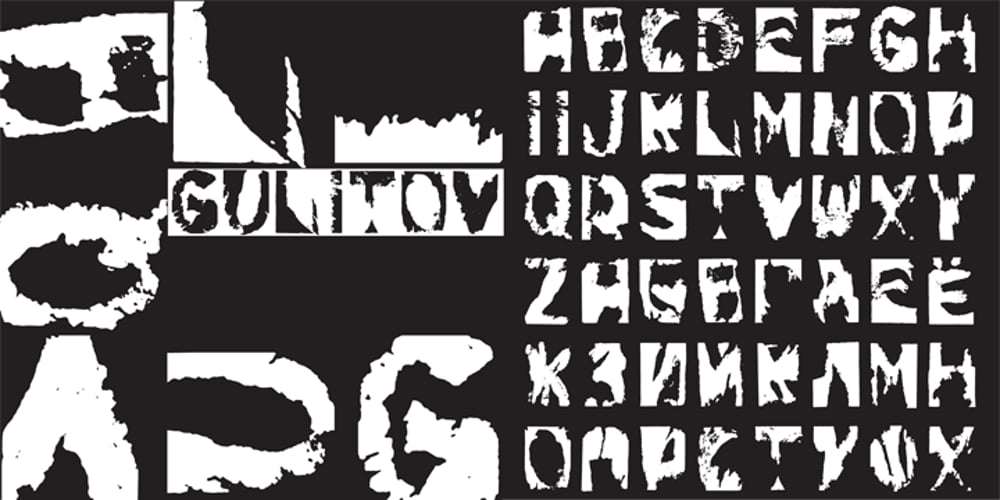
Gulitov
Gulitov font
Gulitov Font Family was designed by ParaType and published by ParaType. Gulitov contains 2 styles and family package options. Original type work designed in unconventional technique by type and graphic designer Yuri Gulitov. The shapes of signs were built up in a very specific routine. At the first stage signs were drawn on the black sheets of paper by the PVA adhesive, then a white sheets was placed above, and finally after some time the white sheets were torn off. The scraps of white paper presented the signs. Inverse style shows hypothetic result of tearing off the black sheets. The style together or separately can be used in display and advertizing works for demonstration of fight between the forces of good and evil or vice versa. Analog version of the font was awarded by diploma on Third International Biennale of Graphic Design “Golden Bee”. Digital version was released by ParaType in 2008.